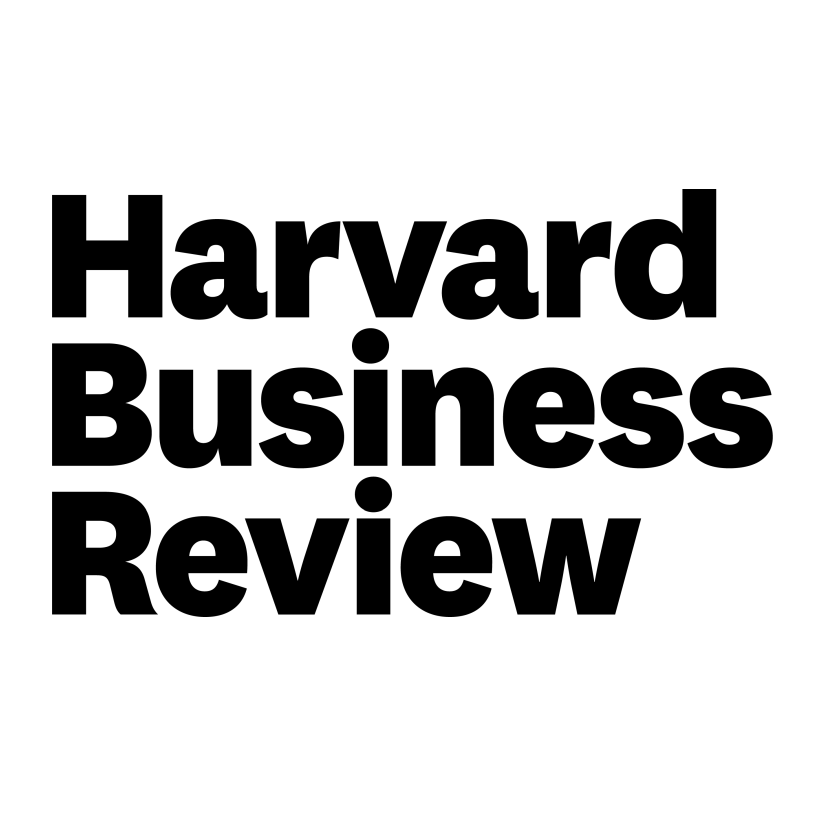
Harvard Business Review Font
Fonts in UseHarvard Business Review is a leading management magazine published by Harvard Business Publishing. It features articles and case studies from experts in business and management, covering topics such as leadership, strategy, innovation, and marketing.
The brand name is set in Klim Type Foundry's National 2 Bold, a sans-serif font that draws inspiration from the nineteenth century's early grotesques and a reworked version of the 2007 original National typeface.